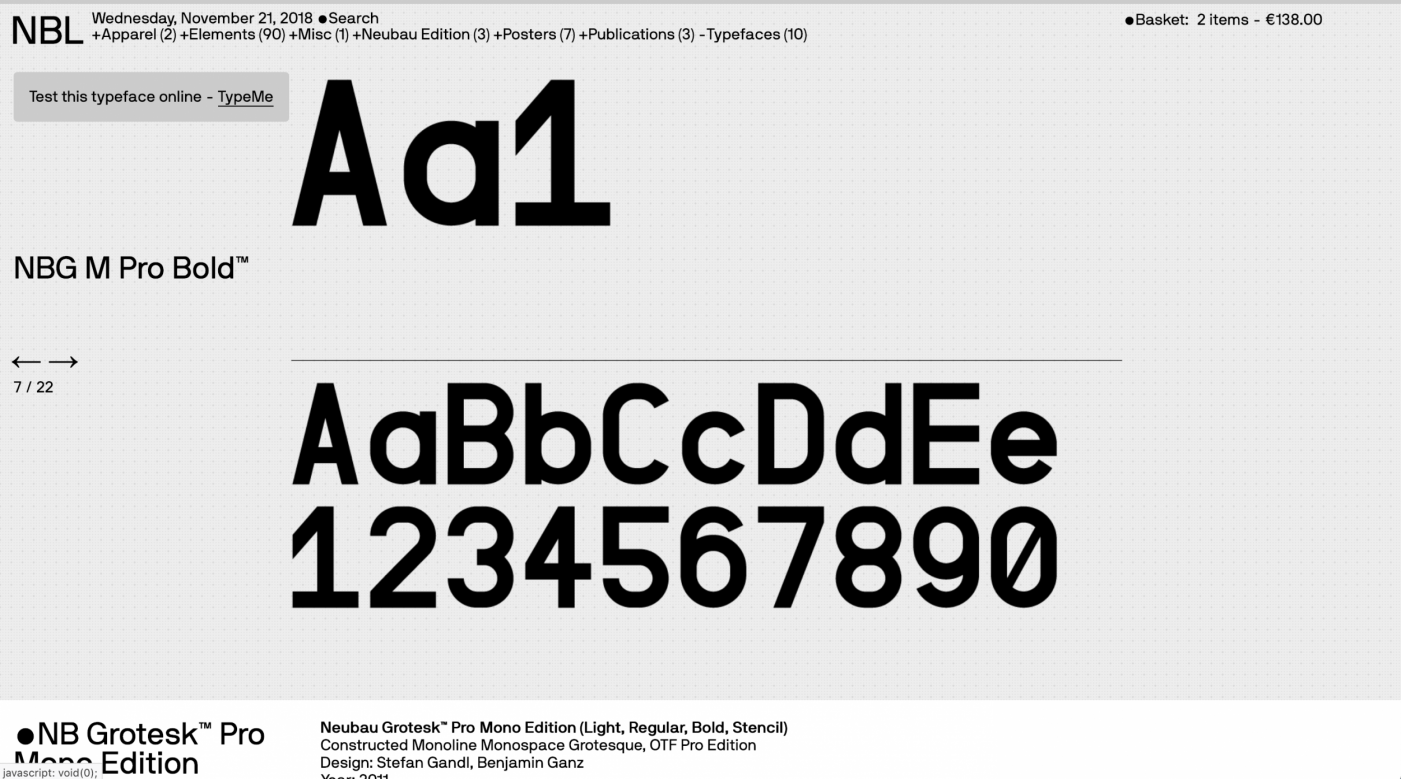
Some clues led me to Neubau...
... but there I get stuck. Couldn't find anything in their portfolio quite like this. The letters setup tells me its rather a typeface than custom drawn letters, anything else I dunno.
I'm looking for typeface, character overview or just ANYthing that makes me closer to being able to buy this precious gem.
Where did you find the image?
By the look of it, I would say the image depicts a booklet showcasing a trendy brutalist monospace using language coverage as specimen, either from some boutique foundry or as a student project.